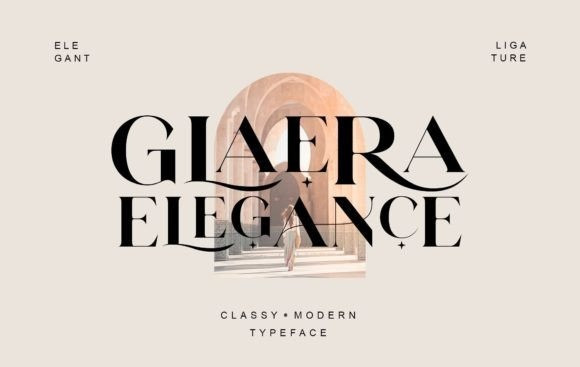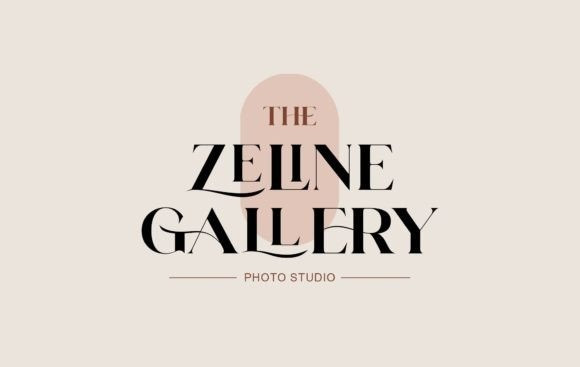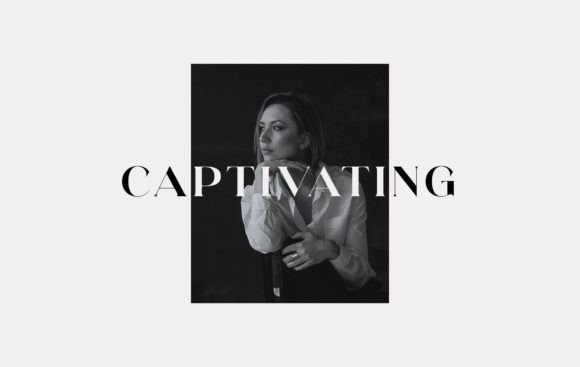
Glaera Elegance Font
Glaera Elegance is a majestic, elegant and expressive serif font. With a contemporary atmosphere and impeccable form, this font was designed to enhance the beauty of your projects.